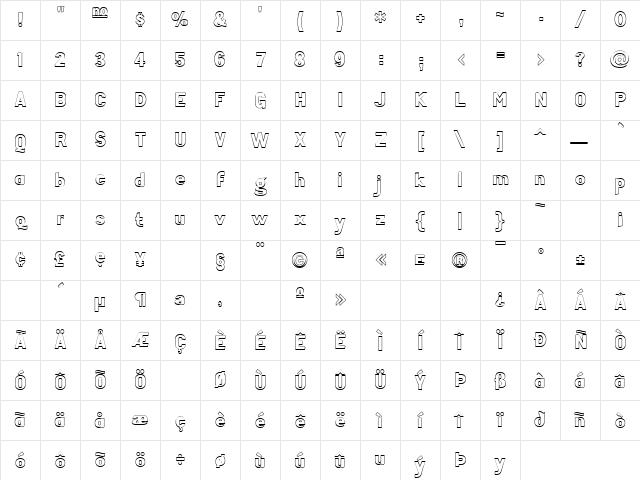
Tenko Regular Free Font
Tenko Regular
Design Context for Tenko
Tenko is a composed and adaptable typeface that performs quietly and consistently across a wide range of design contexts.